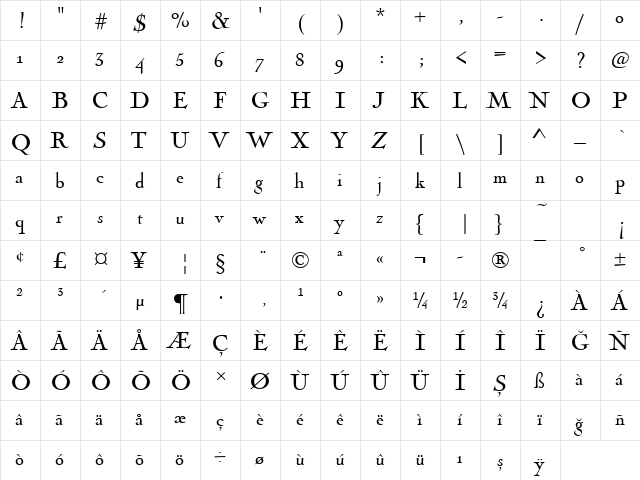
00952 Regular
Design Context for 00952 Typeface
00952 is a composed and adaptable typeface that performs quietly and consistently across a wide range of design contexts.